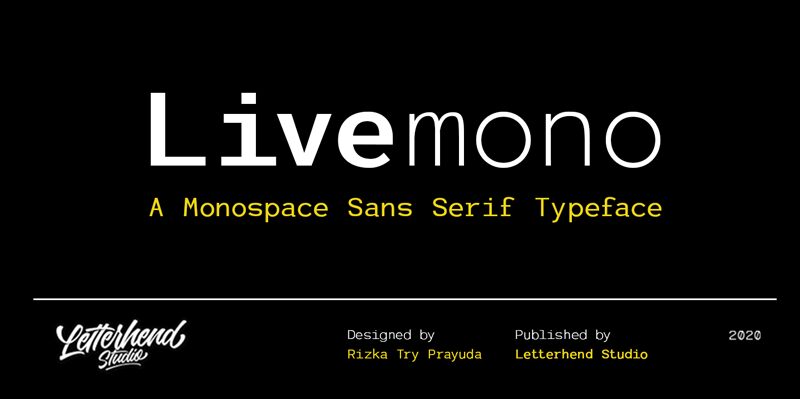
LivemonoDemo
Livemono, the stunning semi-light fixed width font created by Letterhend Studio, is bound to take your projects to the next level. Its unique style and sleek design make it perfect for a variety of projects, from modern tech websites to minimalistic fashion magazines. The Livemono font adds a touch of sophistication and elegance that is sure to impress your audience. Use it for coding projects or add some flair to your branding materials with its standout look. With Livemono, you can elevate any design with ease and confidence.